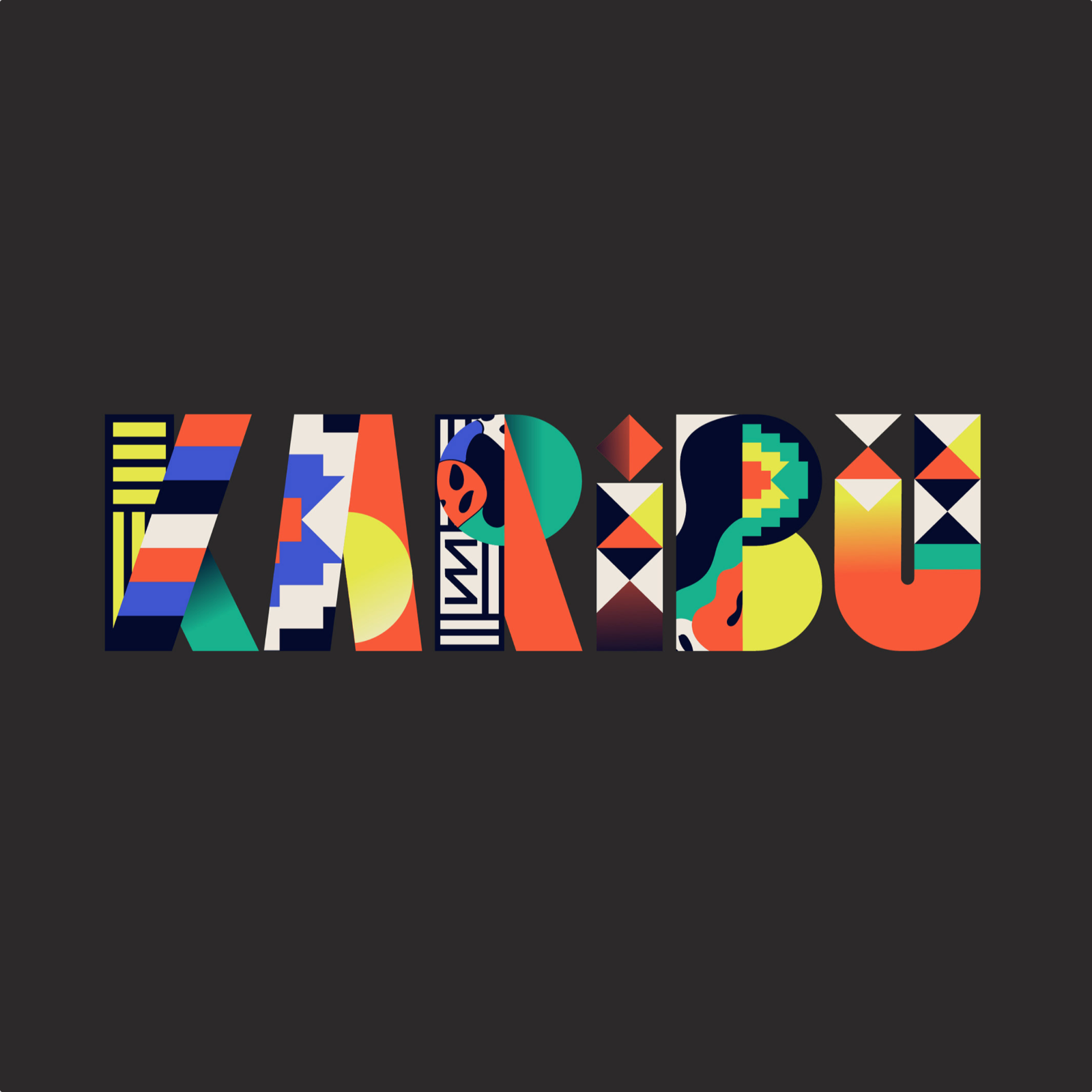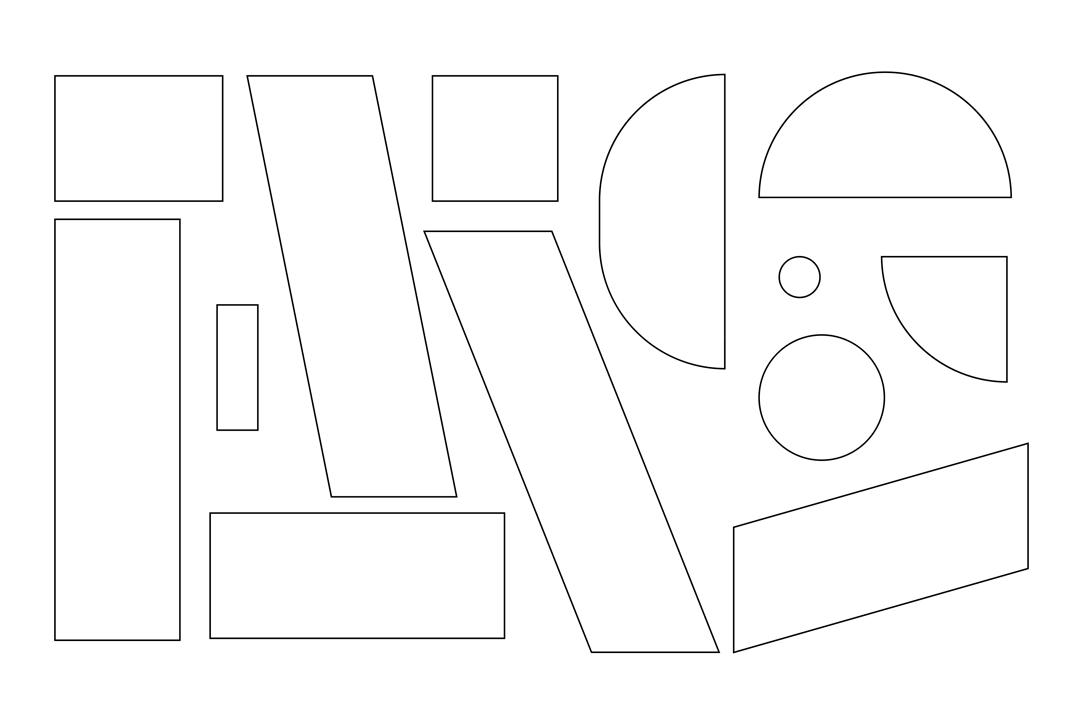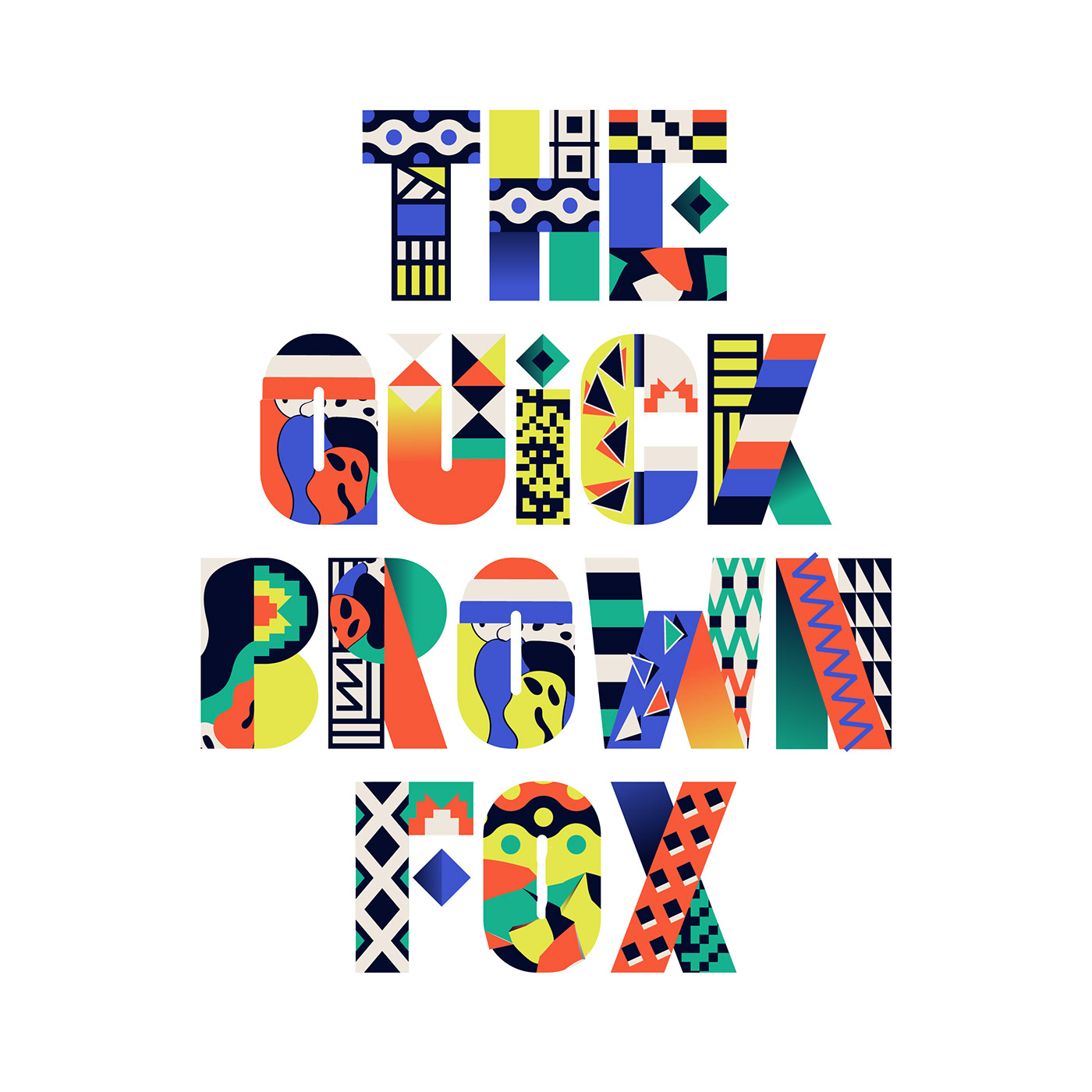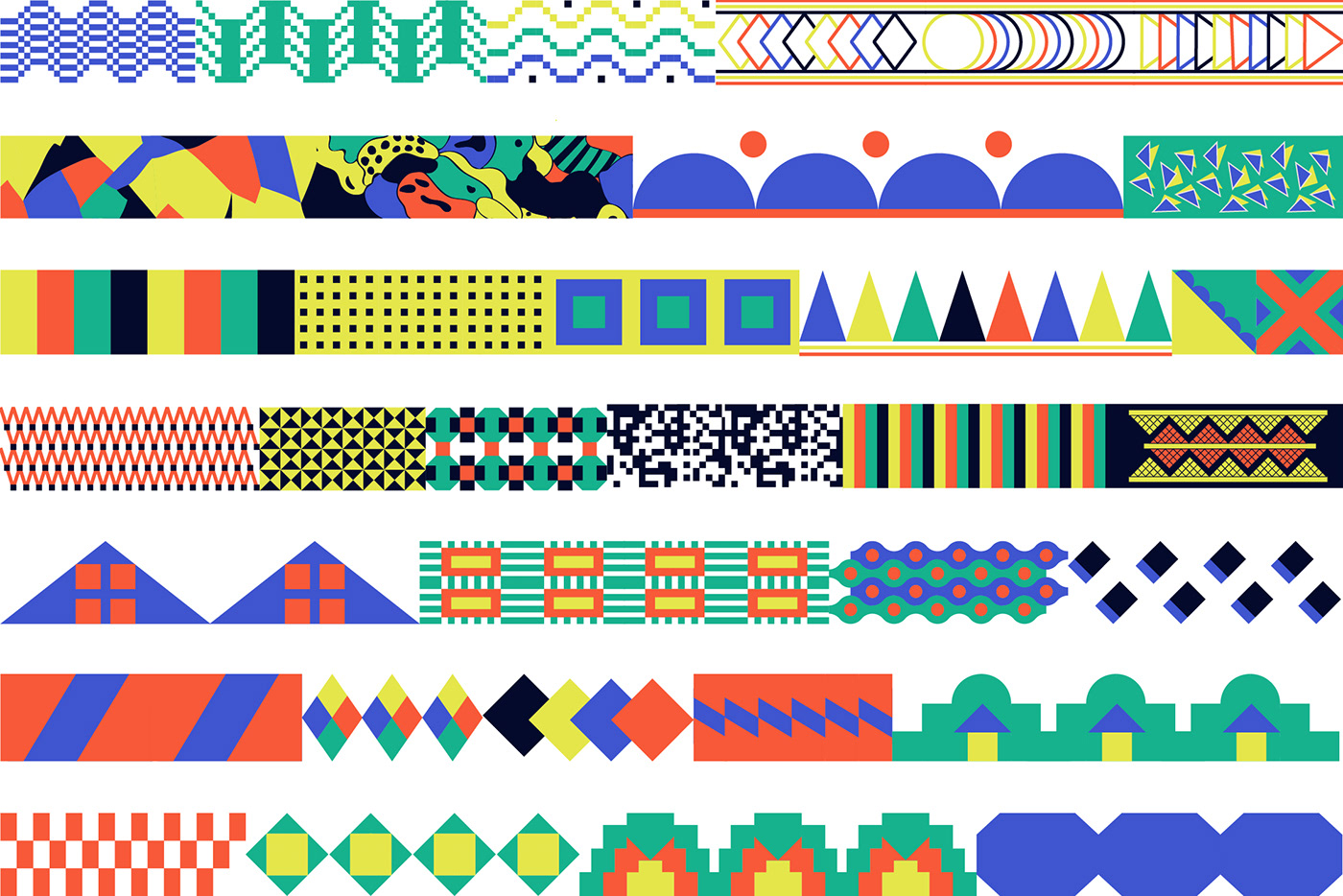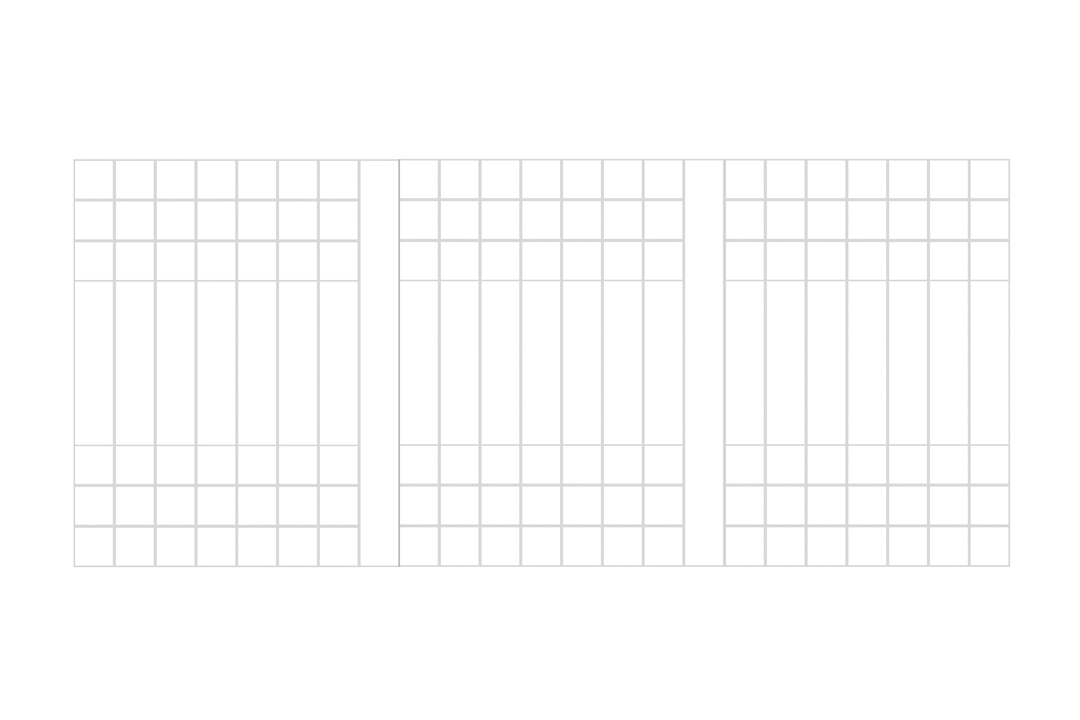
Daniel Triendl and Birgit Palma shared an illustration and typography project, a font tutorial Kenya. Development of a font as well as a tutorial for Fontself Maker, an extension for Illustrator to create colored fonts. The font is based on a modular system and focus on a graphic, bold reinterpretation African heritage. For more information ame sure to follow Birgit and Daniel on Instagram @birgitpalma, @danieltriendl